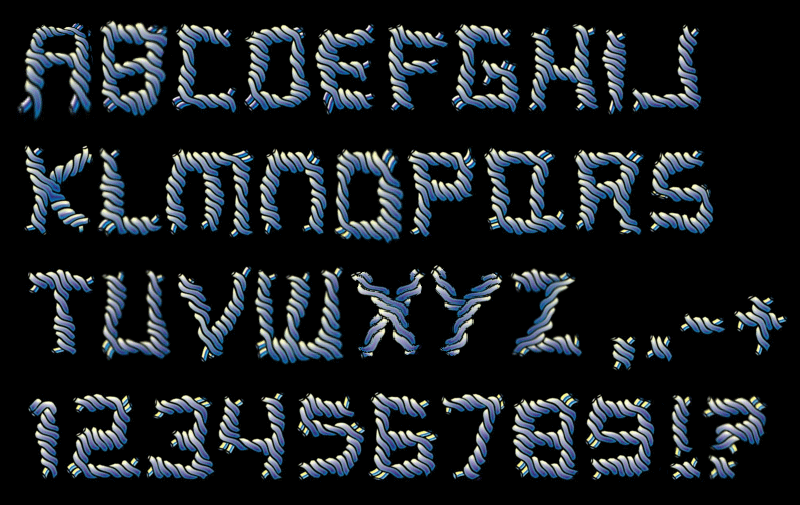
Font name: | A Ripping Yarn |
Author: | Mike Wolf |
Note by Mike Wolf | |
I had spools of yarn in mind when I created it, but this font reminds me more of barbed wire or worms now that I´ve finished it. There´s a font for every application, whether you own a haberdashery or a live bait shop. Have fun. |